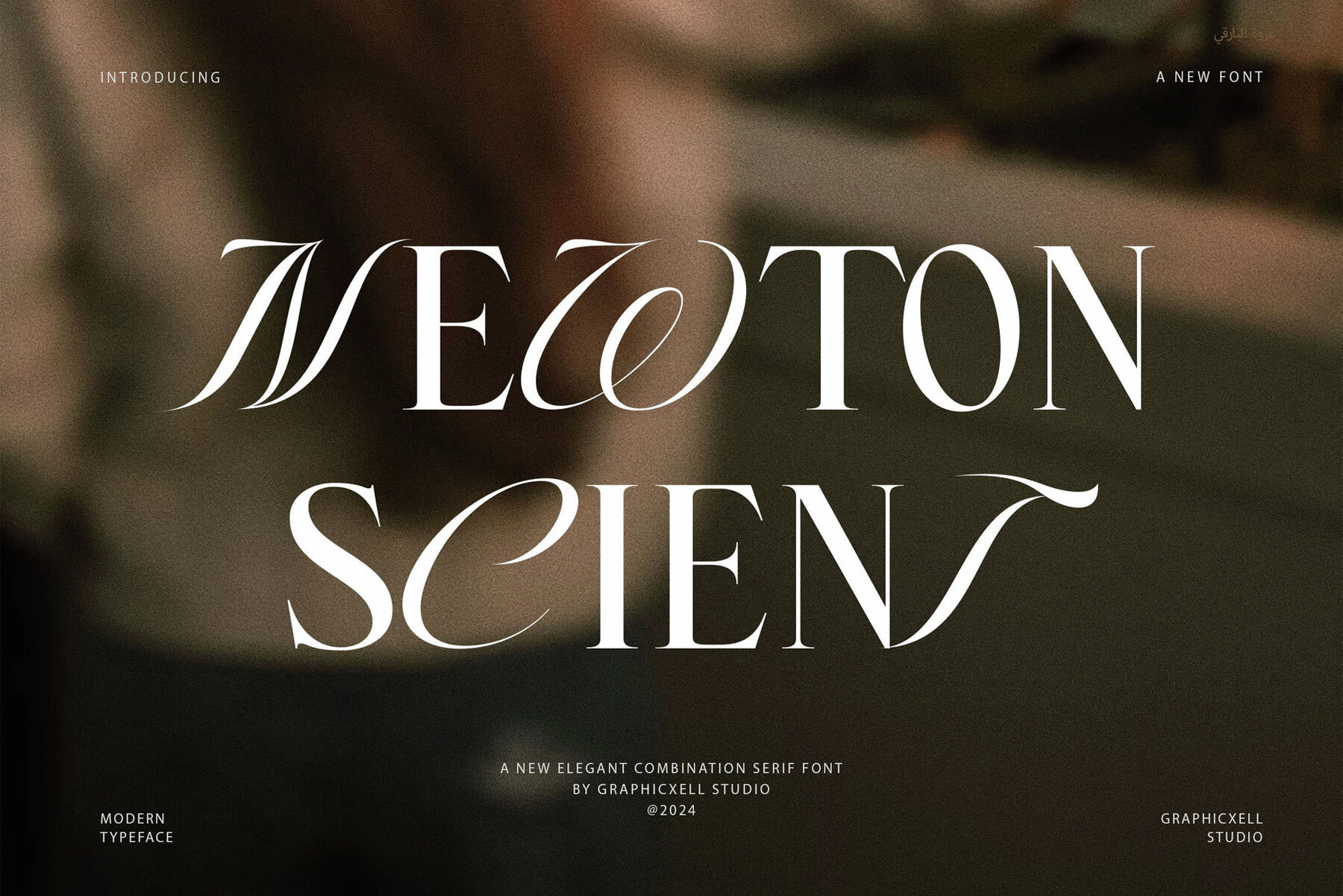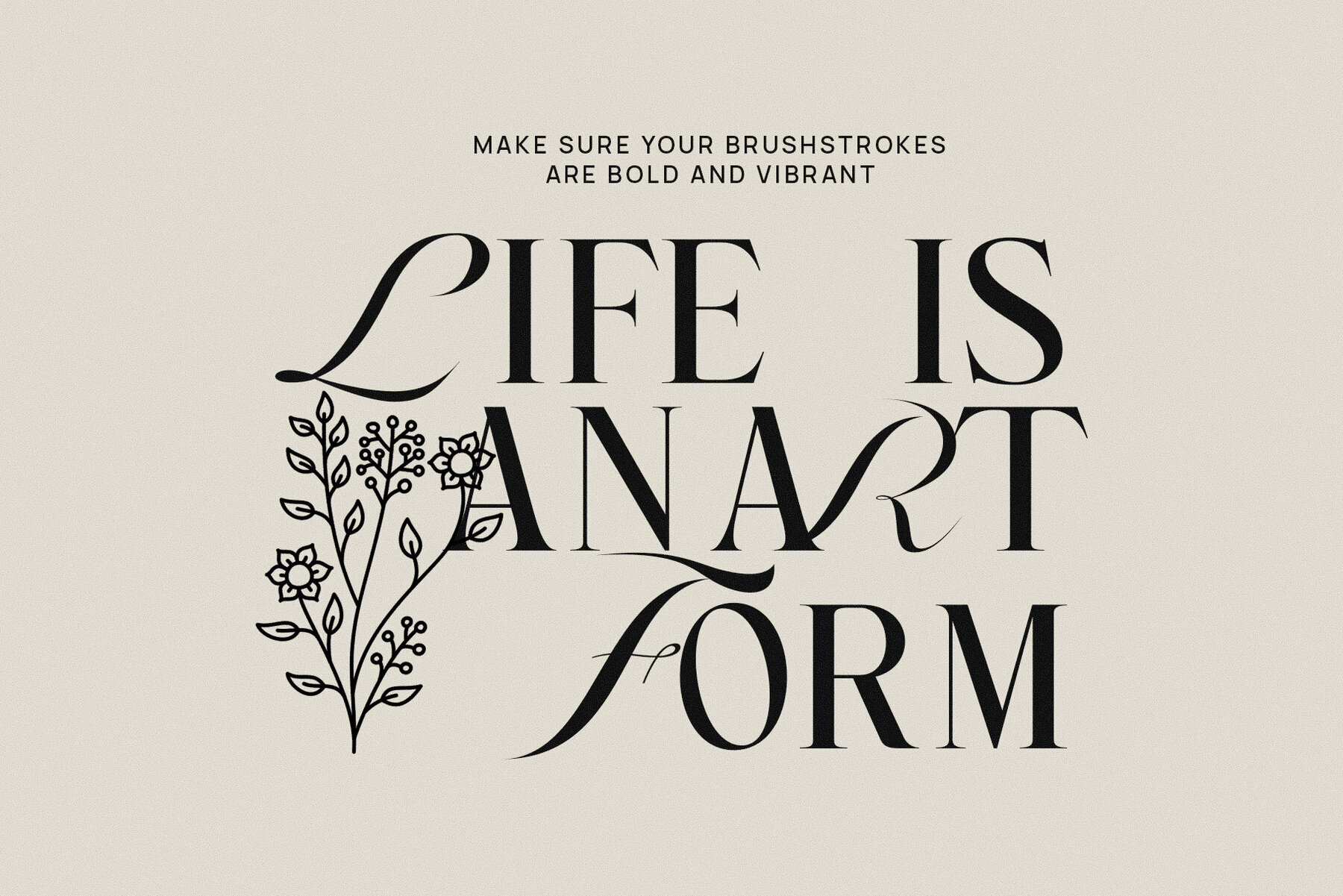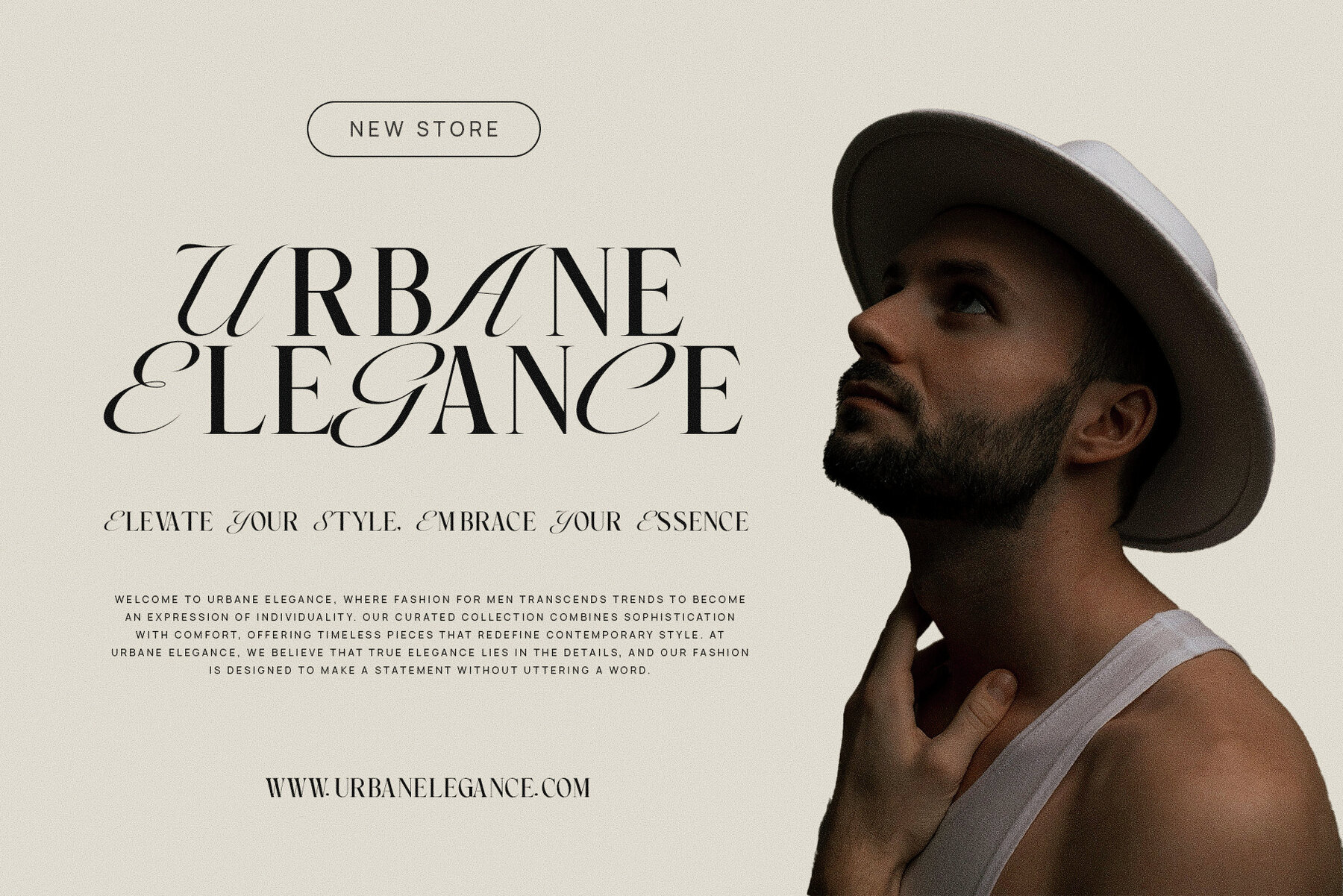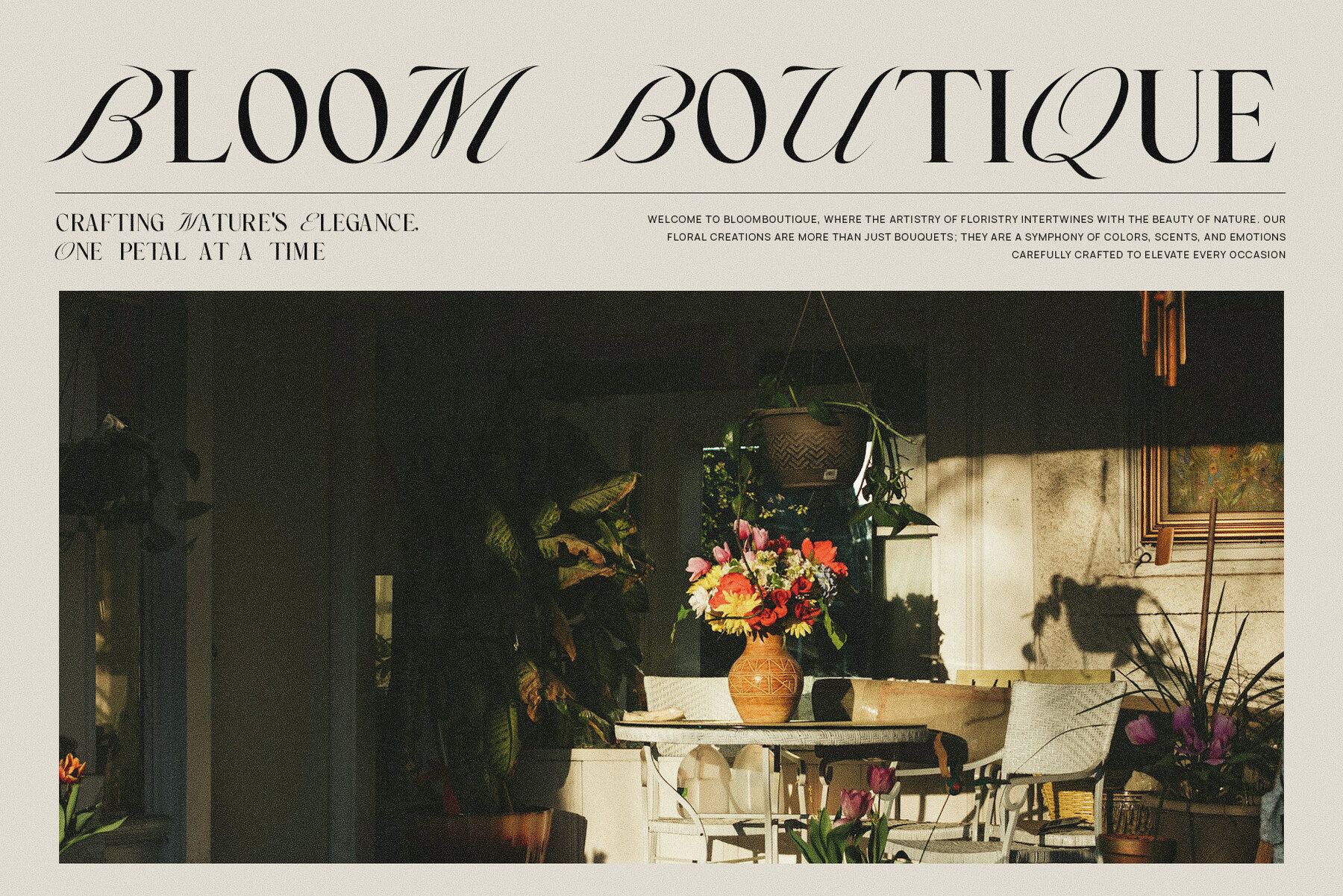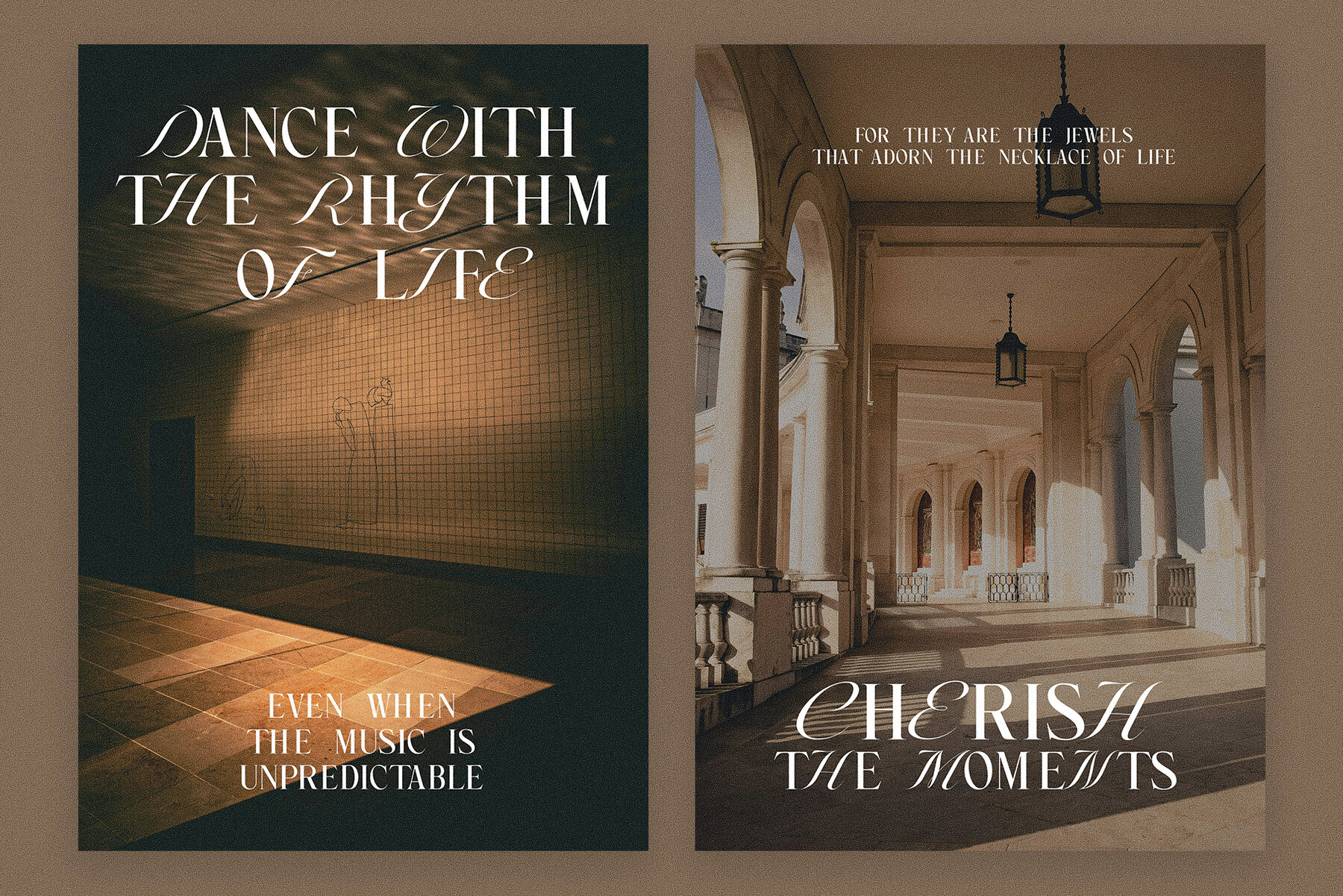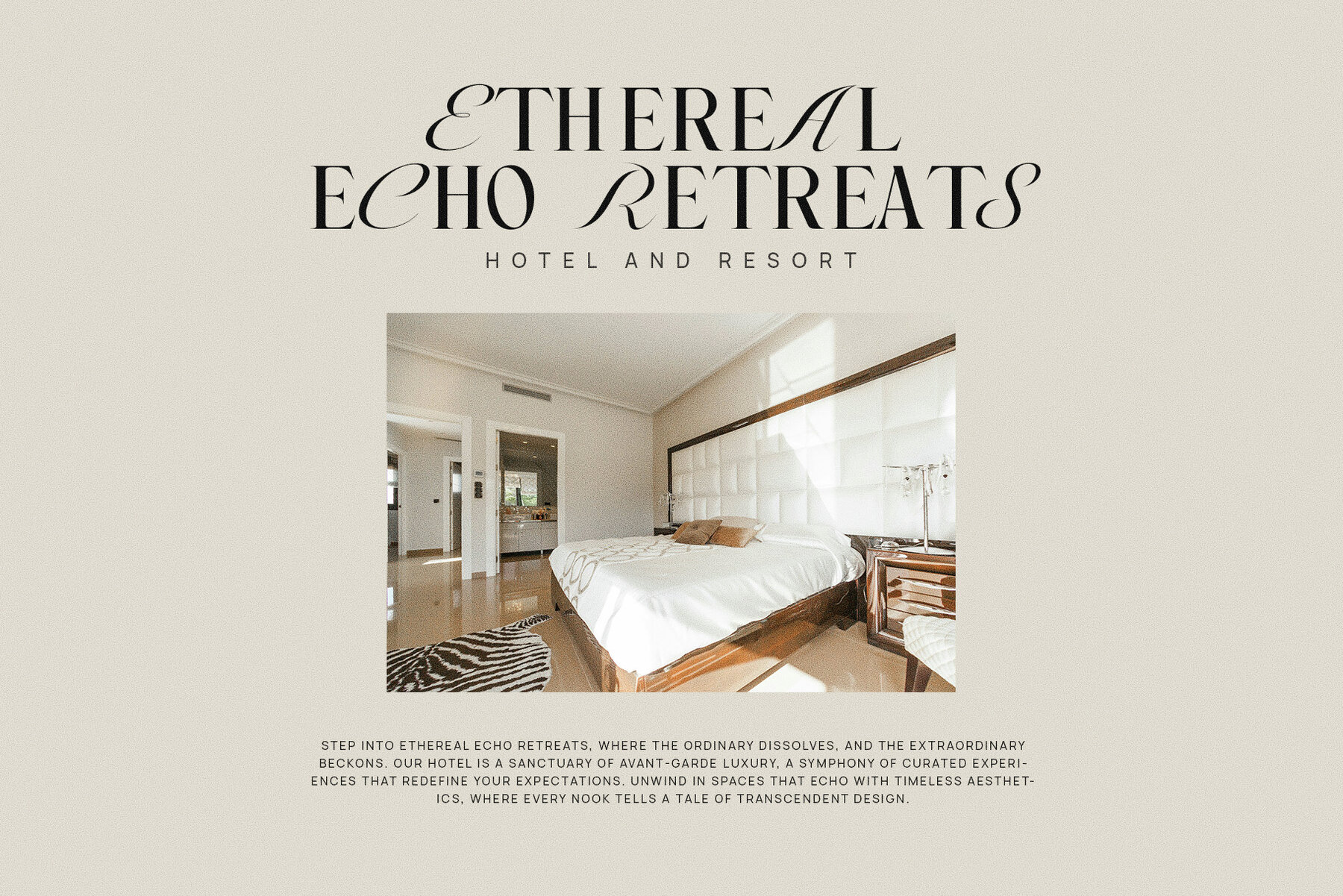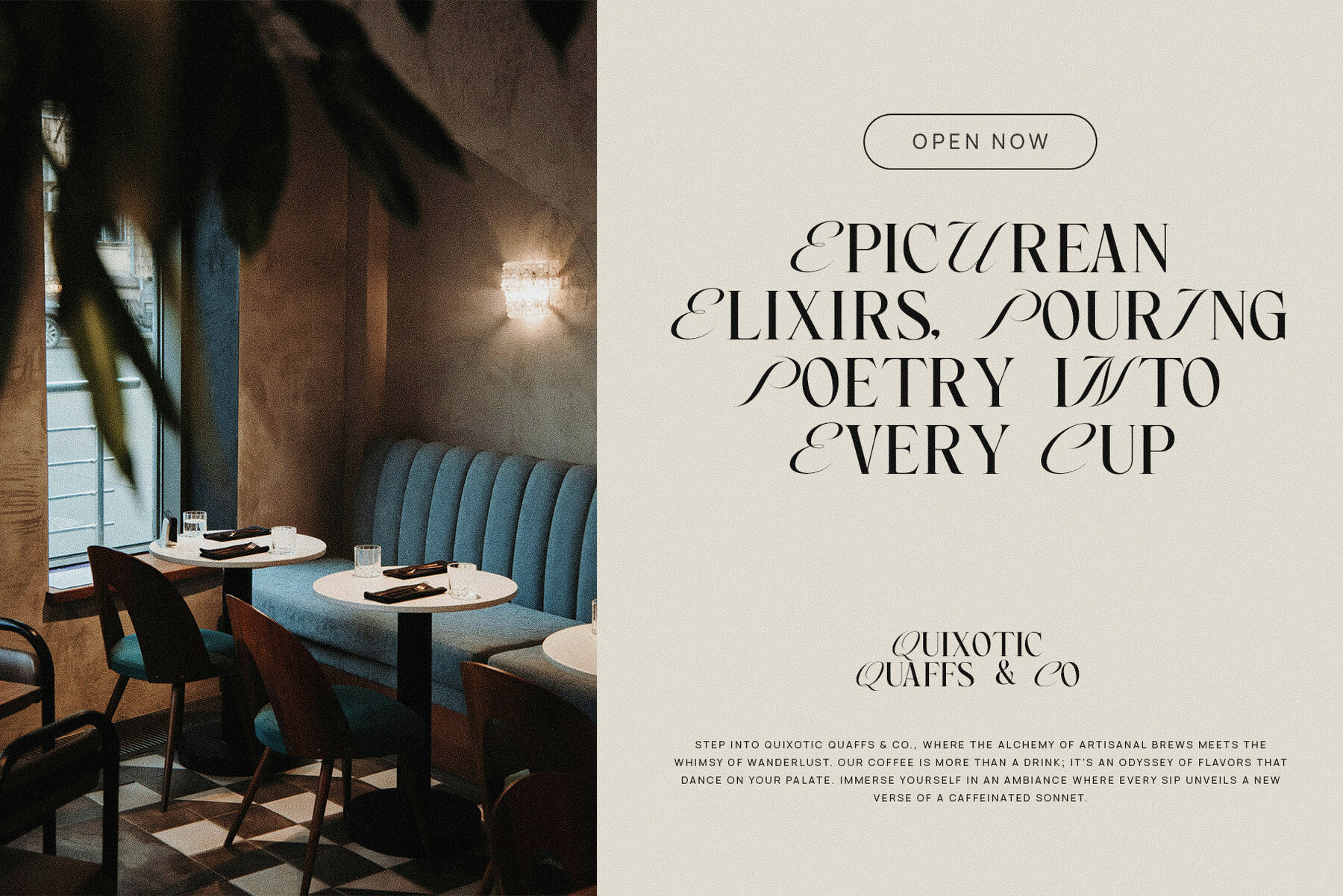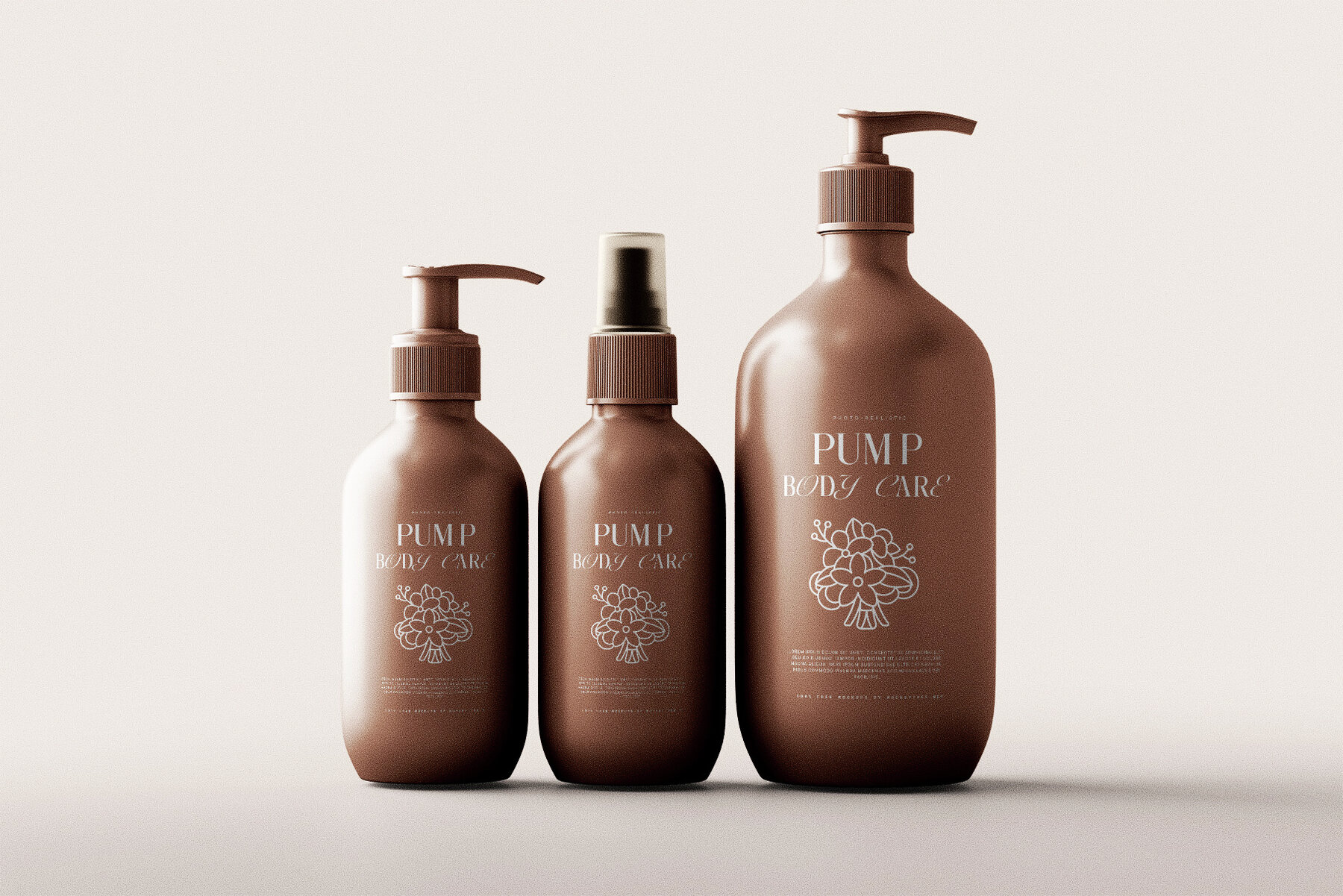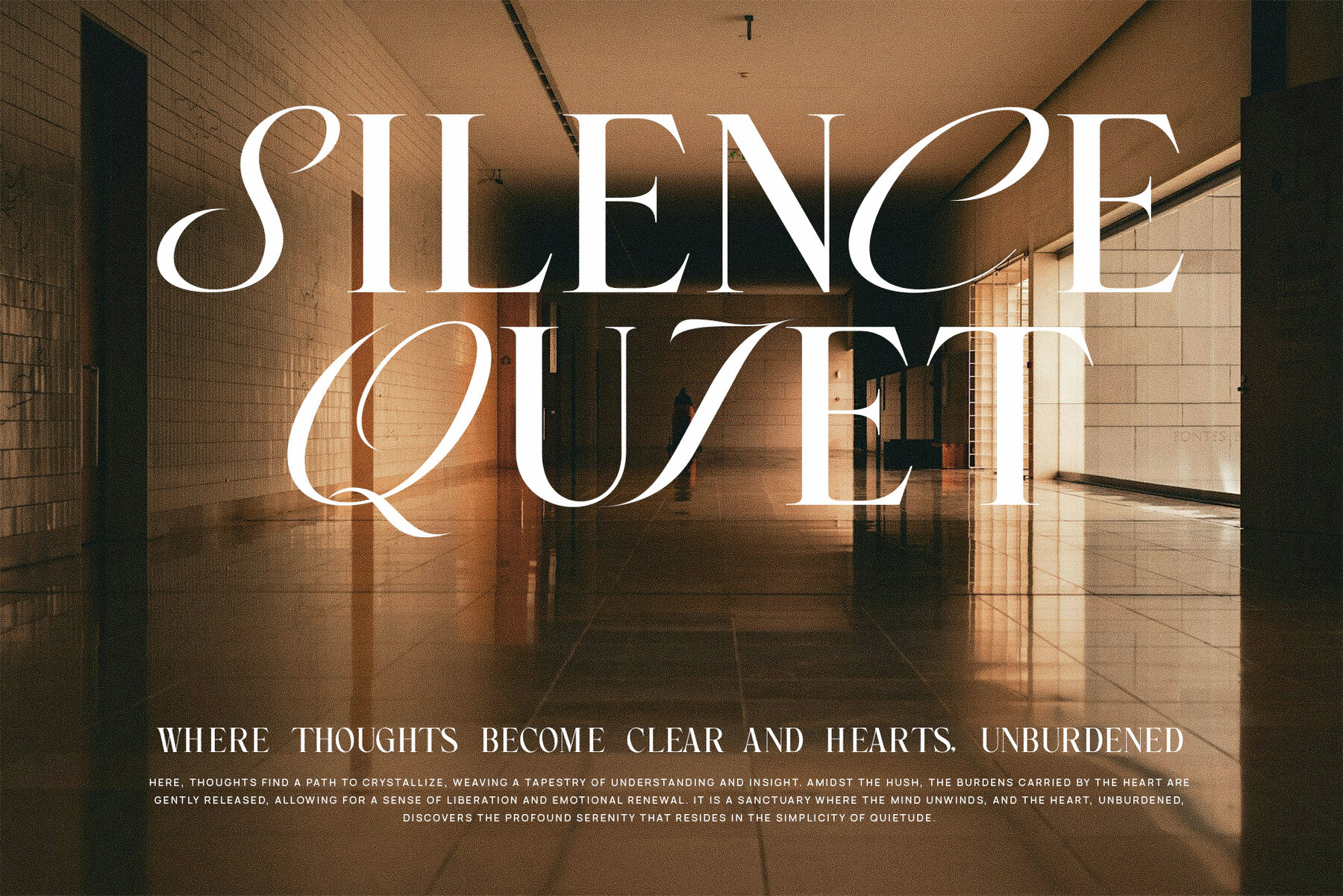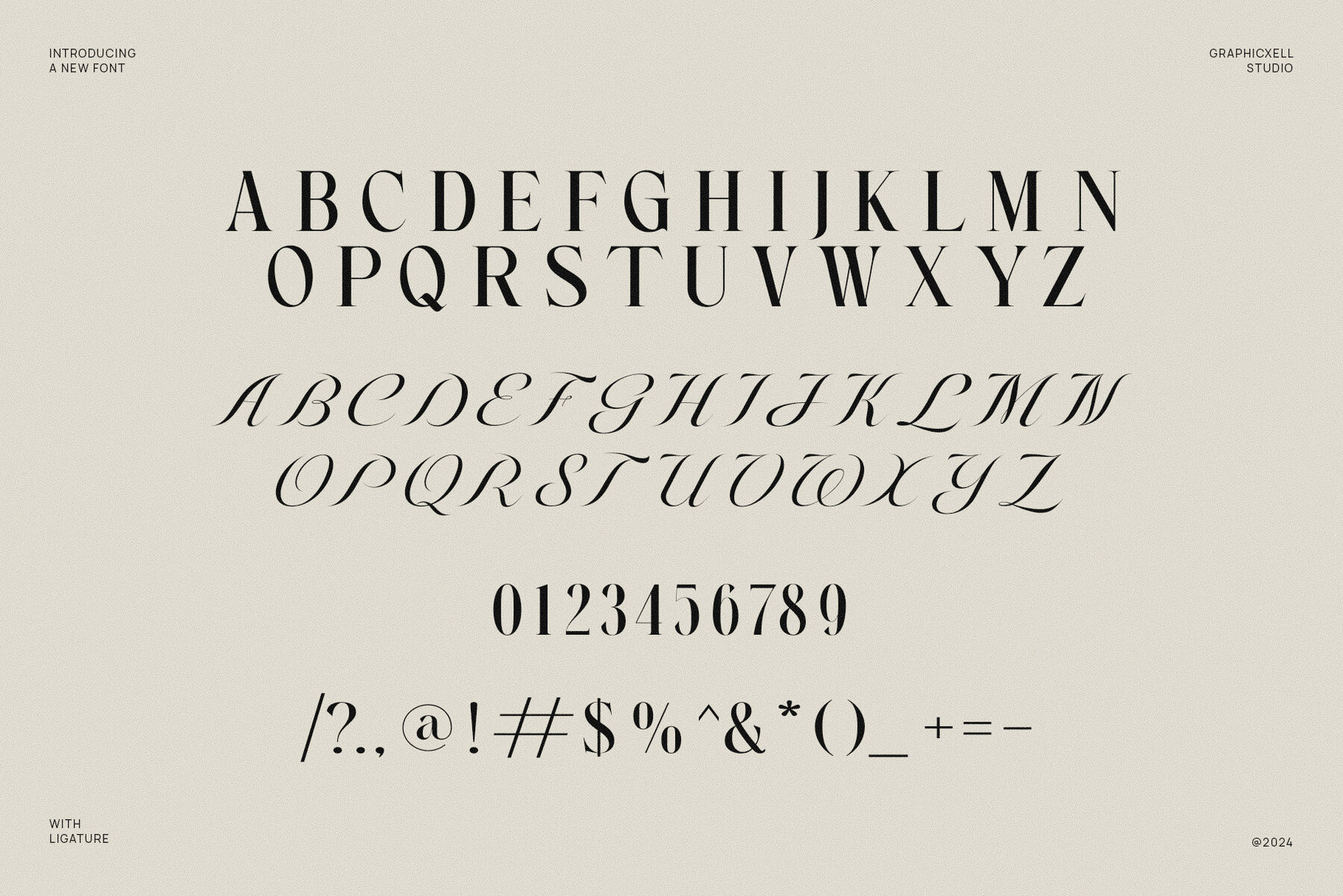
Newton Scient Font
Newton Scient
Newton Scient Calligraphy Serif Font is an elegant font with a unique style. Not only for branding but it is also best for logo designs. So, it is a must-have font for a graphic designer.
If you have never seen this font before, it combines a classy style with a modern one. The small line at the corner of the end of each letter is its key feature.
The curves of the font shows how stunning it is. The slope of the typeface is even no less impressive.
Whether you have a project on branding, wedding design, or logo, Newton Scient Calligraphy Serif Font can be a great addition.
It also works perfectly for other projects such as stationery, invitations, watermarks, photography, labels, product designs, product packaging, ads, and social media posts.
What’s more is that this font has a good readability, ensuring that the message of your text will be delivered clearly.
In graphic designing projects, Newton Scient Calligraphy Serif Font will be useful and valuable because it can significantly increase the attractiveness of your works.